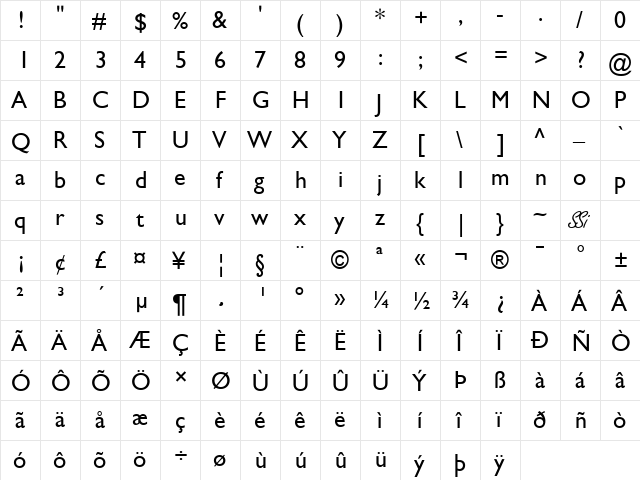
Gill SSi Regular
Design Context for Gill SSi Typeface
Gill SSi takes a measured approach to typography — its balanced proportions and neutral character make it a reliable workhorse for both digital and print work.